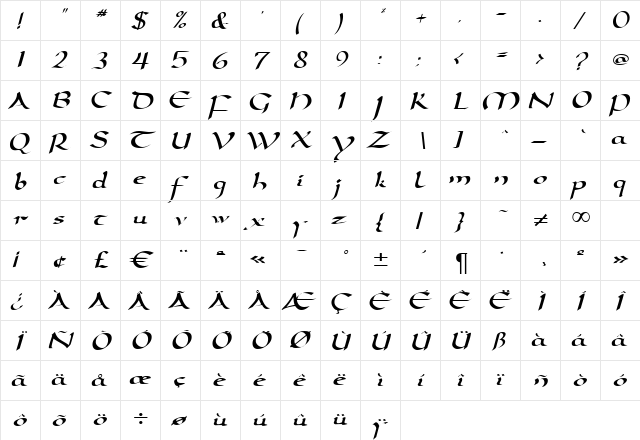
Script-D790 Regular
Design Context for Script-D790 Typeface
Script-D790 flows with the natural rhythm of handwritten lettering, making it ideal for designs that call for warmth and personal expression.
Font Pairing: Combine Script-D790 with a simple geometric sans for maximum contrast — the tension between flowing curves and clean structure is a classic typographic pairing.
Pro Tip: Use Script-D790 for short runs of text — names, titles, or taglines. Extended body copy in script faces tires the eye quickly.